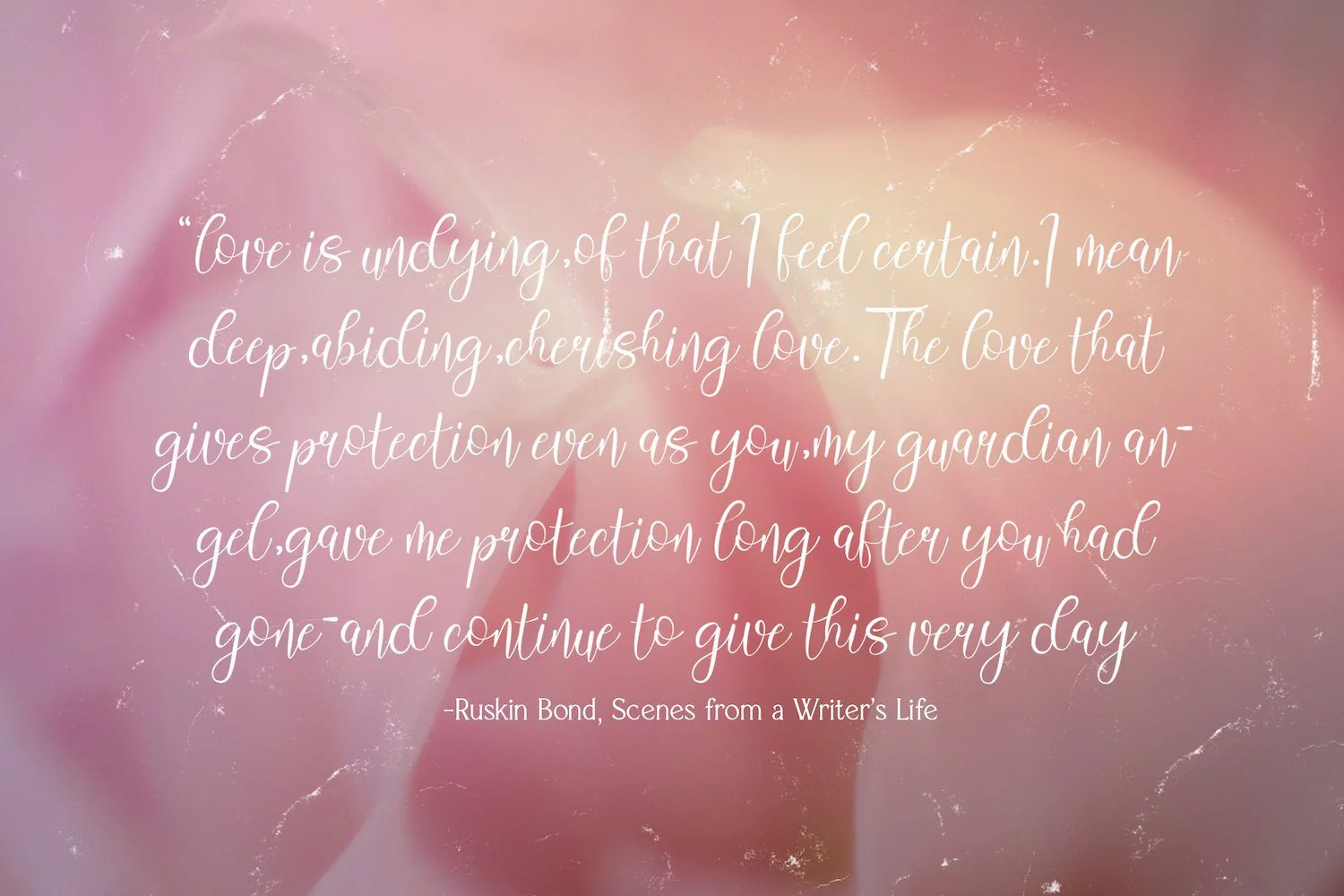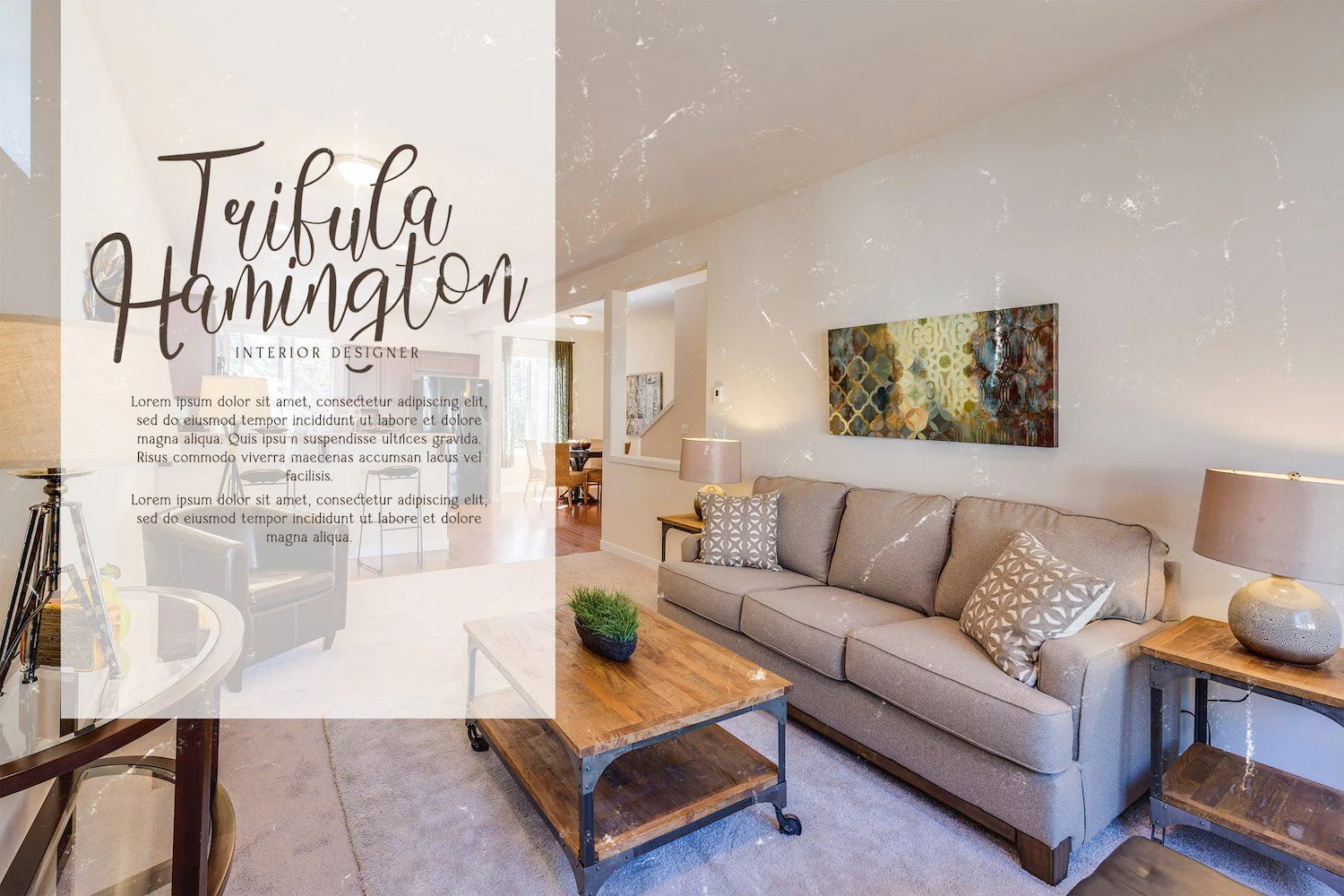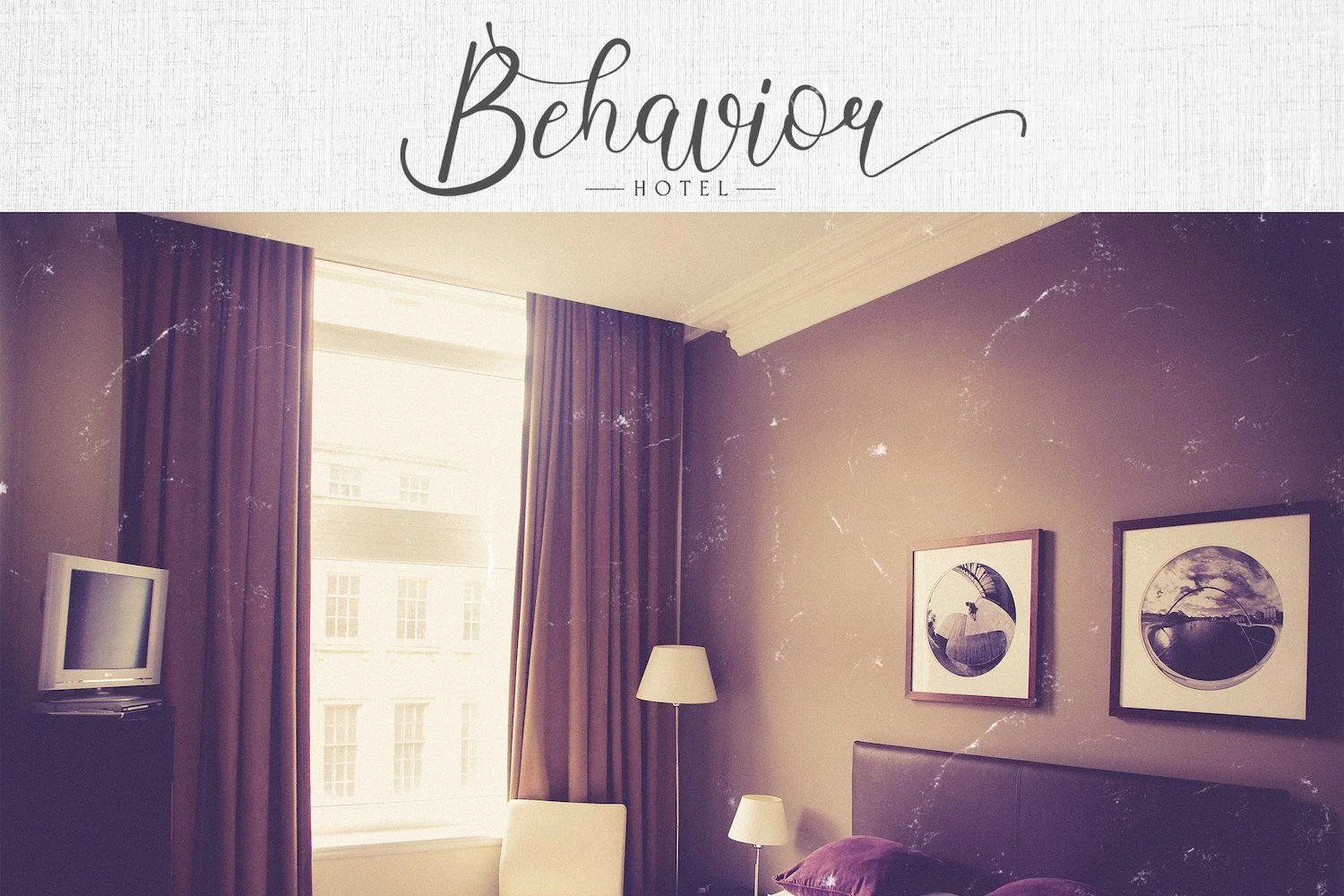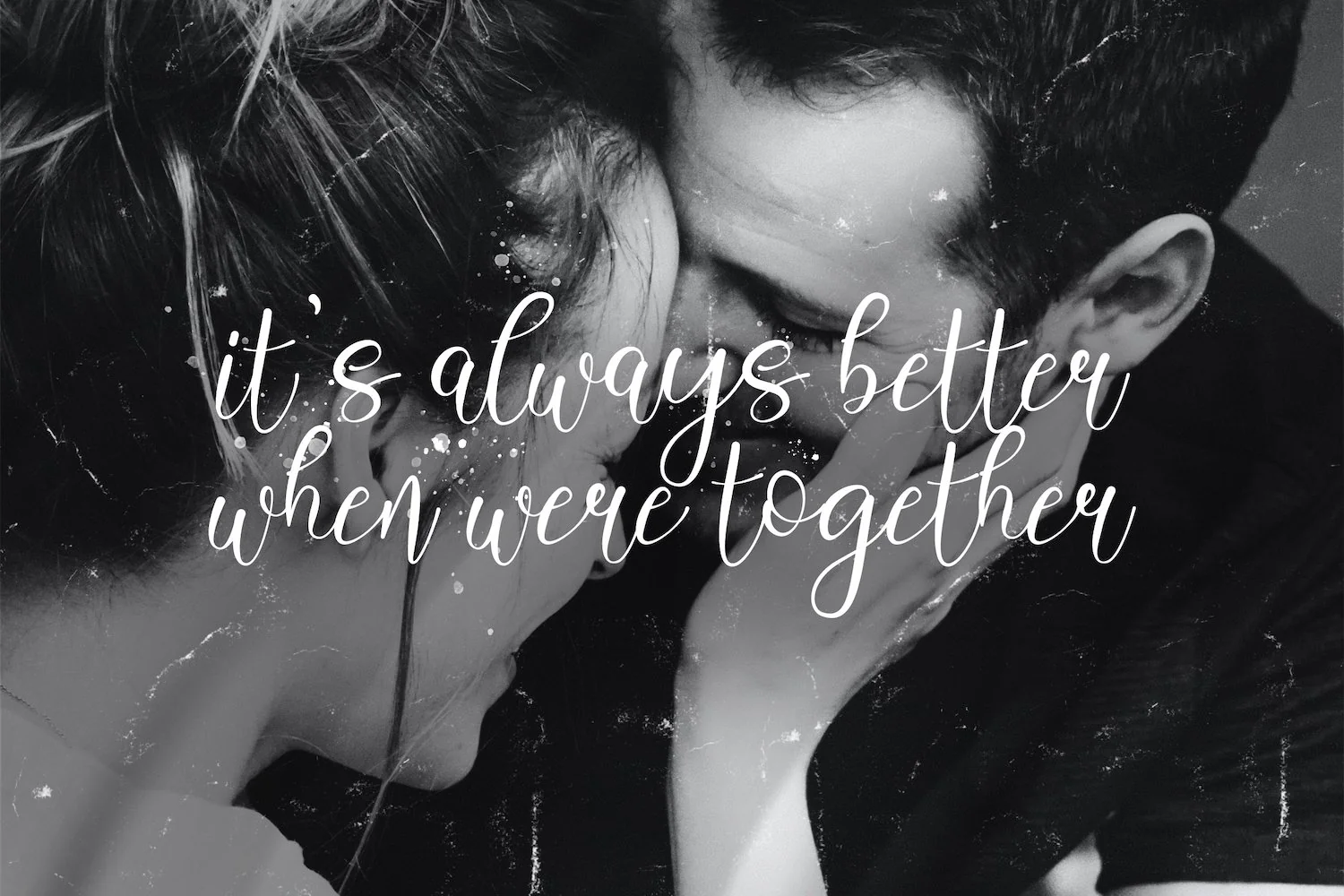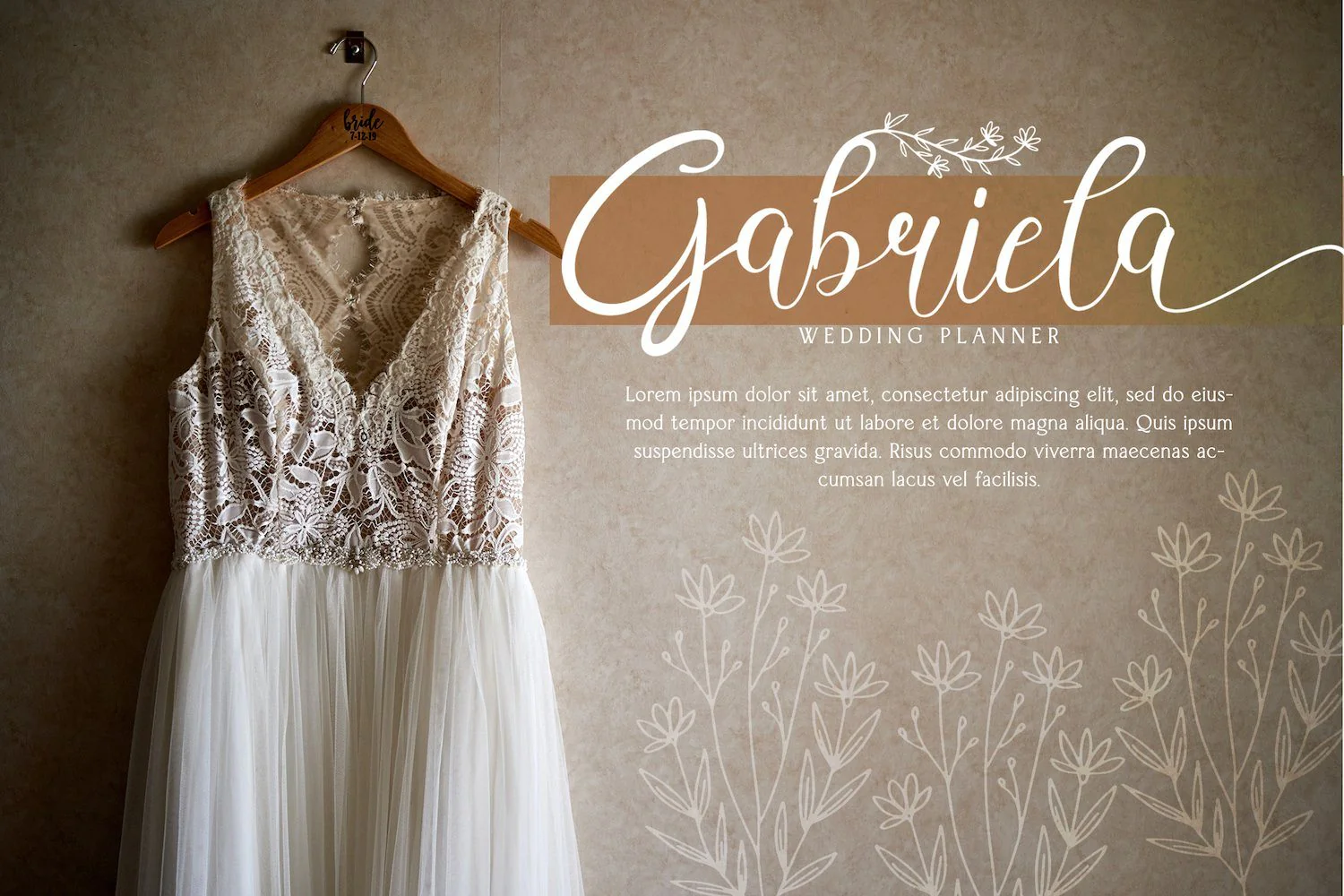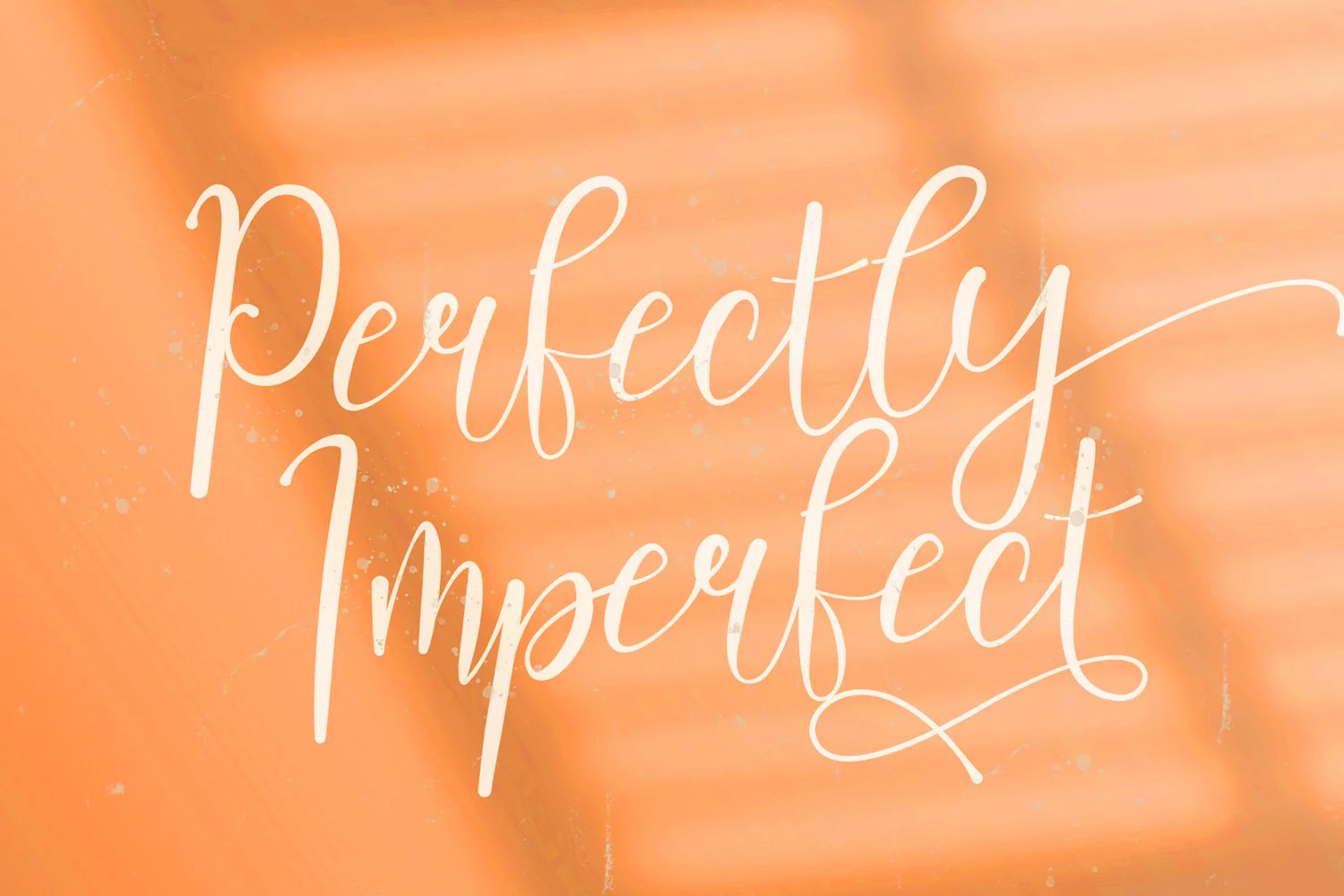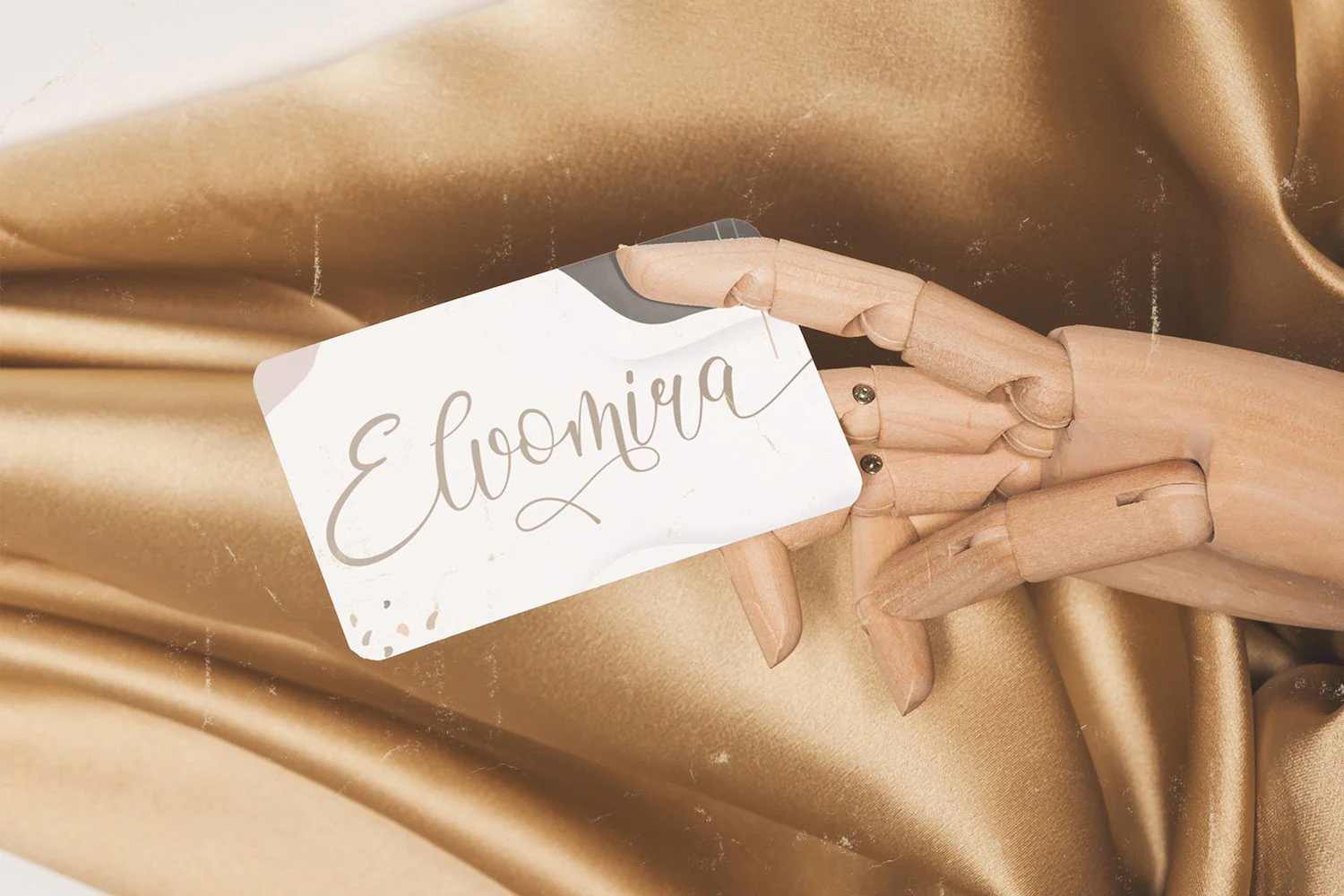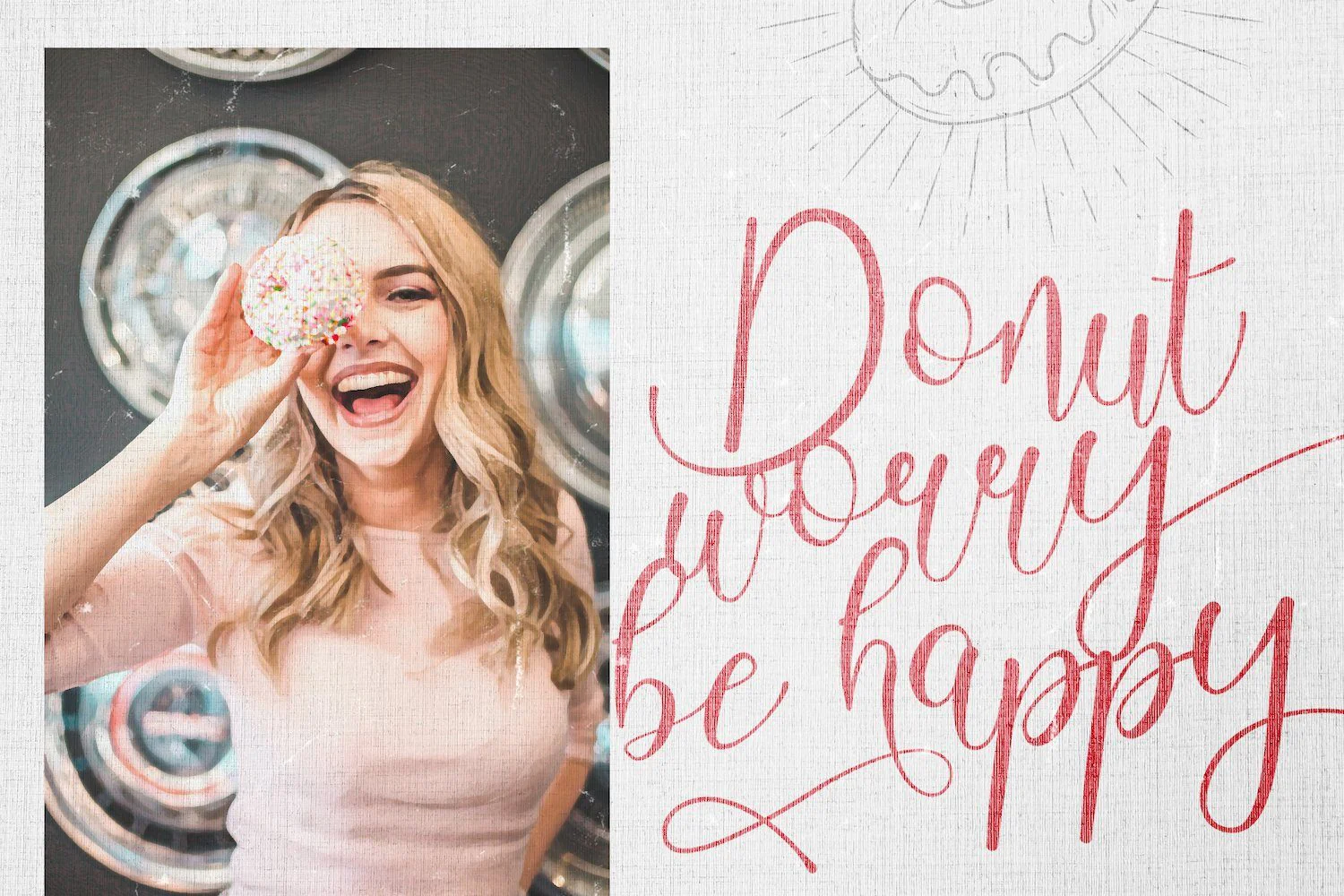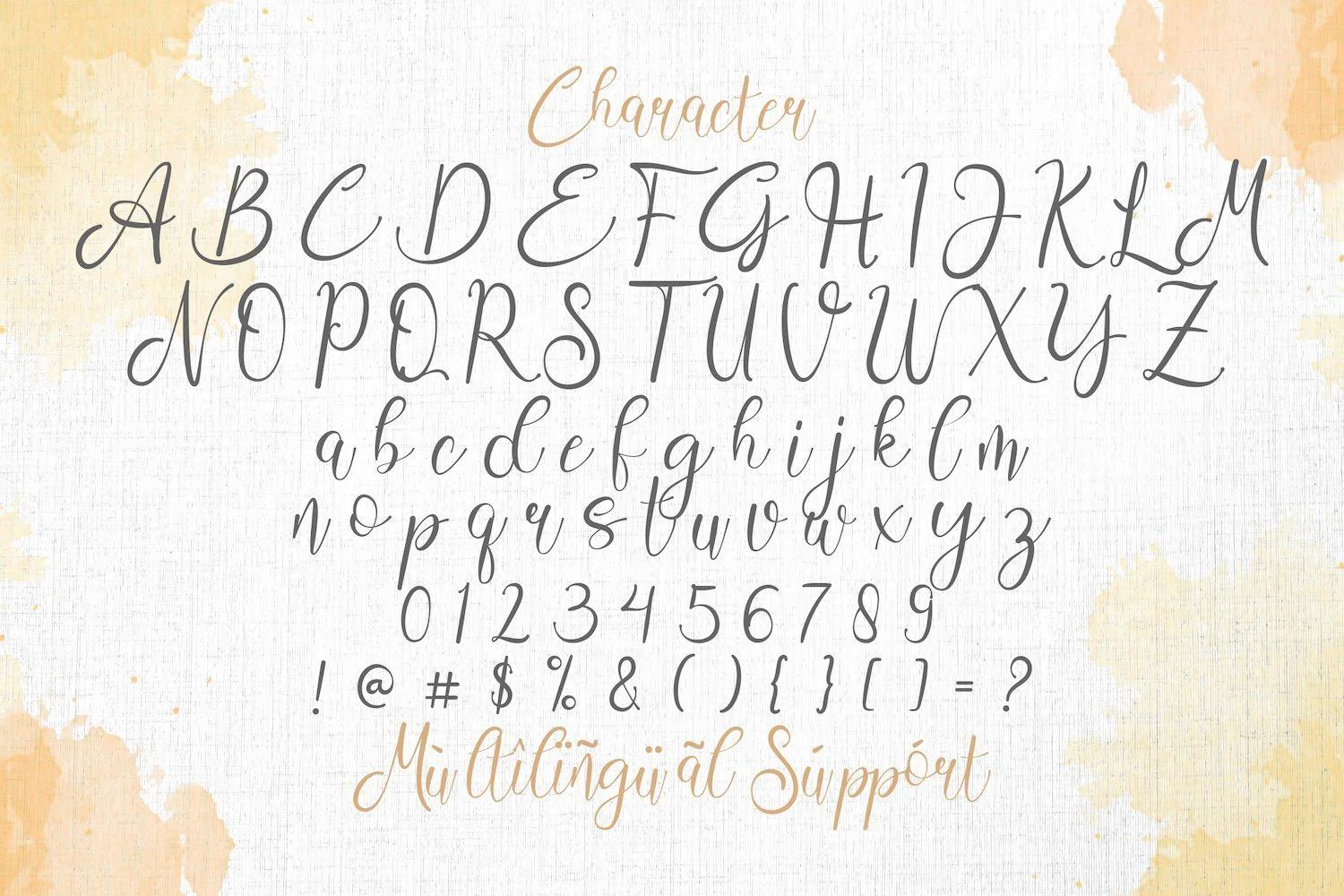
Introducing Aisbum Slashey - Modern Script Font
Aisbum Slashey is a modern and elegant script font. It will elevate a wide range of contexts to the highest level, be it branding, headings, wedding invitations, signatures, logos, labels, and much more! Fall in love with its incredibly versatile style and use it to create spectacular designs!
Introducing Aisbum Slashey - Modern Script Font
Aisbum Slashey is a modern and elegant script font. It will elevate a wide range of contexts to the highest level, be it branding, headings, wedding invitations, signatures, logos, labels, and much more! Fall in love with its incredibly versatile style and use it to create spectacular designs!